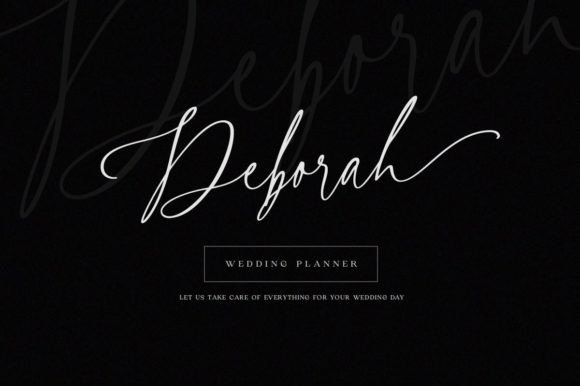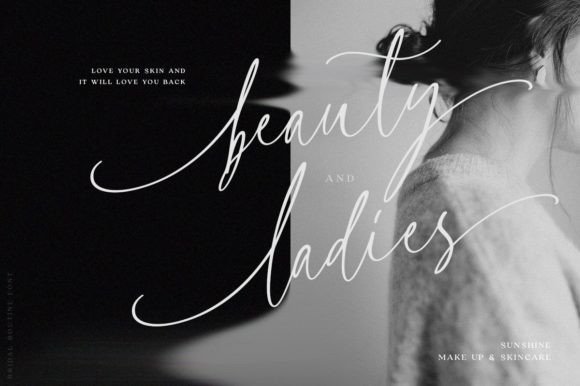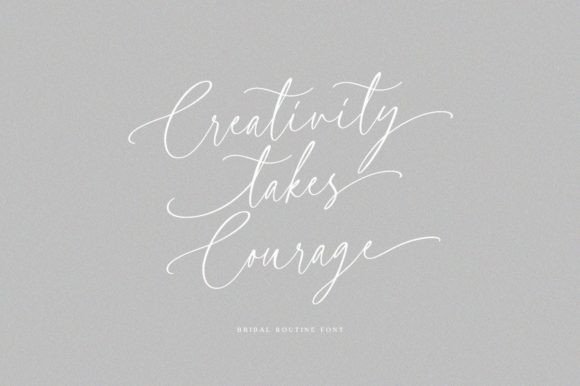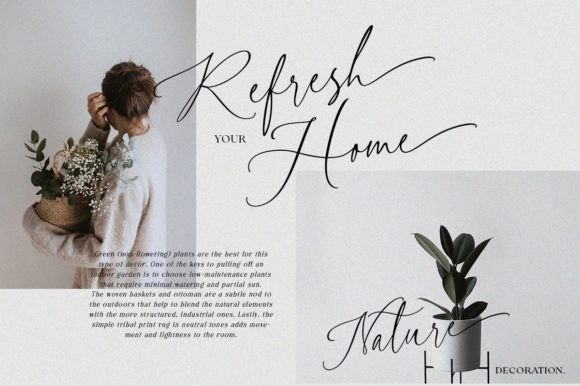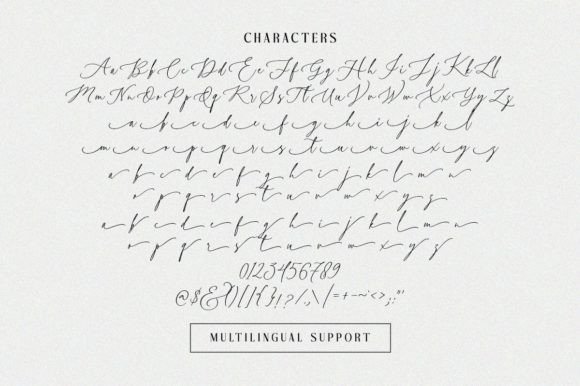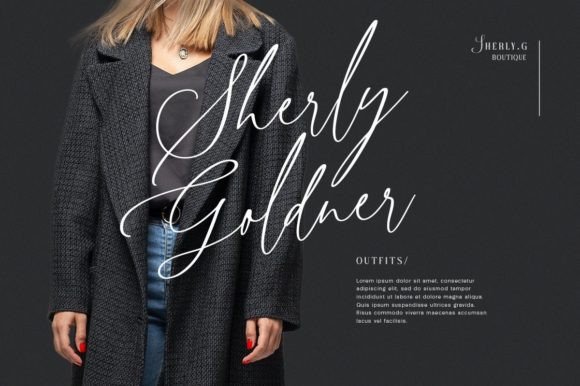
Unleashing the Beauty of Handwritten Romance: Bridal Routine Font
Imagine you’re browsing through a vintage bookstore, and you stumble upon a beautifully crafted wedding invitation. The elegant script, the delicate strokes, and the personal touch evoke a sense of romance and nostalgia. This is the kind of emotional connection that a beautifully designed font can create. For designers, finding the perfect font can be a game-changer, and that’s where the Bridal Routine Font comes in.
Bridal Routine Font is a stunning signature script font that mimics the beauty of manual handwriting. With its stylistic alternates, ligatures, and tick and thin strokes, this font is perfect for adding a touch of elegance to any design project. Whether it’s a wedding invitation, a logo, or a magazine cover, Bridal Routine Font is sure to leave a lasting impression. And with its PUA encoding, designers can access all the glyphs and swashes with ease, making it a valuable addition to any design arsenal.
Bridal Routine Font Key Features
- Font Family: A custom-designed script font, ideal for wedding invitations, bridal shower invitations, and other wedding-related materials.
- Unique Characteristics: Features elegant, cursive script with intricate details and flourishes, adding a touch of sophistication to wedding-related designs.
Bridal Routine Font Review
First off, I love the whimsical feel of Bridal Routine Font! ✨ It’s a beautiful, elegant script font that’s perfect for wedding invitations, announcements, and other special occasions. The flowing lines and gentle curves evoke a sense of romance and sophistication, making it a great choice for brides-to-be.
Some of the standout features of Bridal Routine Font include:
- ✨ Elegant, flowing lines that add a touch of whimsy to any design
- ✨ High-quality vector format, making it easy to scale and manipulate
- ✨ Wide range of languages supported, including English, Spanish, French, and more
However, I do have a few concerns:
- ⚠️ Limited font weight options, which can make it difficult to create a cohesive design
- ⚠️ Not suitable for body text, as it can be difficult to read in smaller font sizes
Overall, I think Bridal Routine Font is a beautiful addition to any designer’s toolkit. While it may have some limitations, its elegant, whimsical feel makes it perfect for special occasions. With a little creativity and experimentation, I’m sure you’ll be able to create stunning designs with this font.
The Bridal Routine Font is ideal for wedding-related designs, such as:
- Wedding invitations
- Wedding programs
- Wedding menus
- Bridal shower invitations
- Wedding day timelines
For optimal results, use the font in combination with elegant and